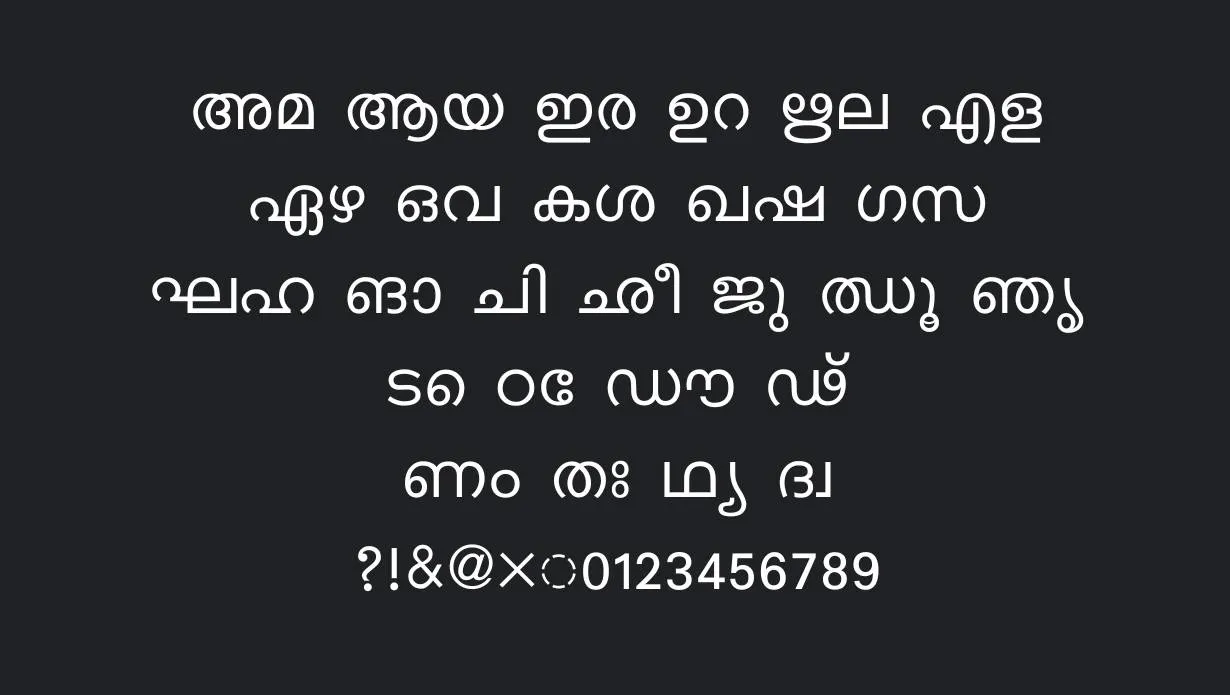
The ML TT Karthika Normal font carries a simplistic and clear design, ensuring easy readability for various projects. In Adobe Photoshop, maintains legible and clear text, and CSS, and it preserves a straightforward look for web elements.